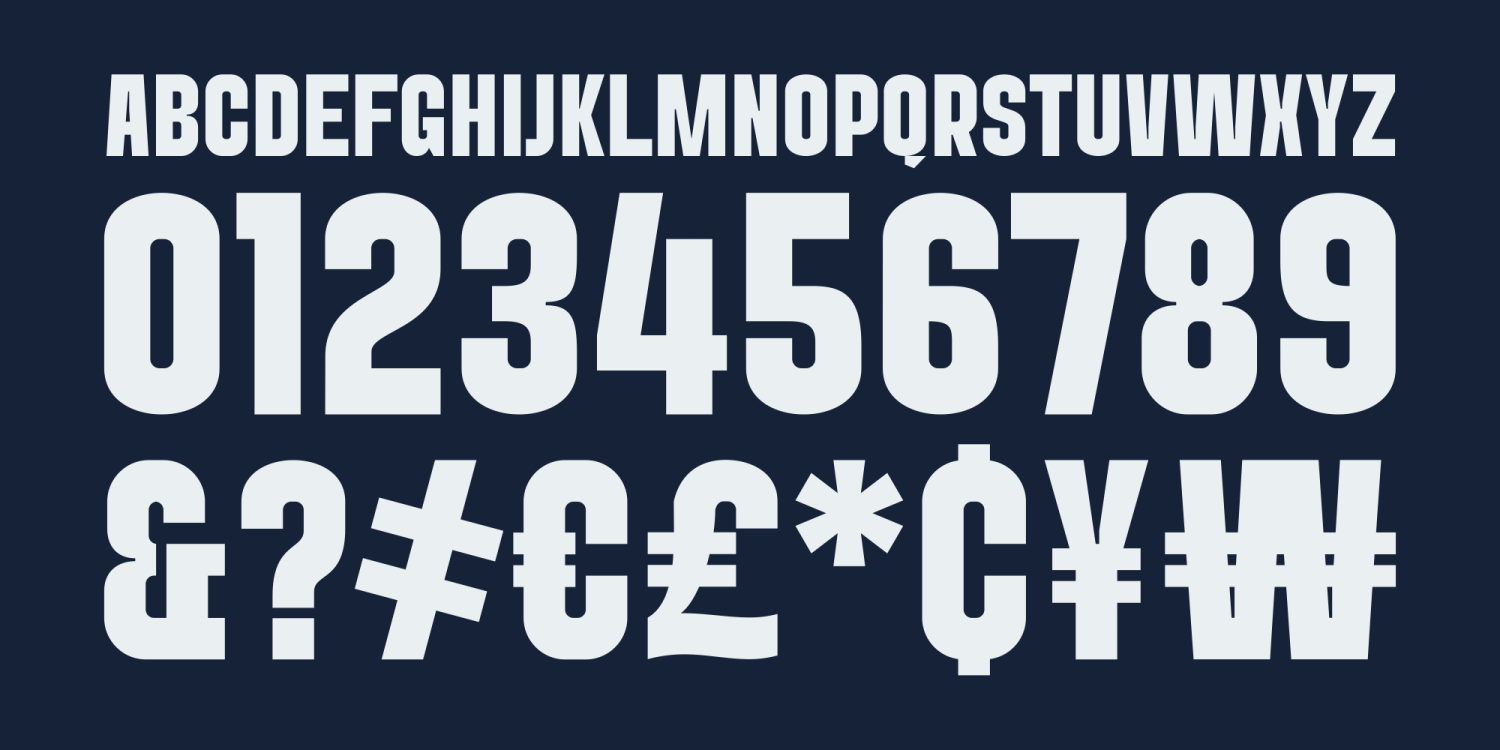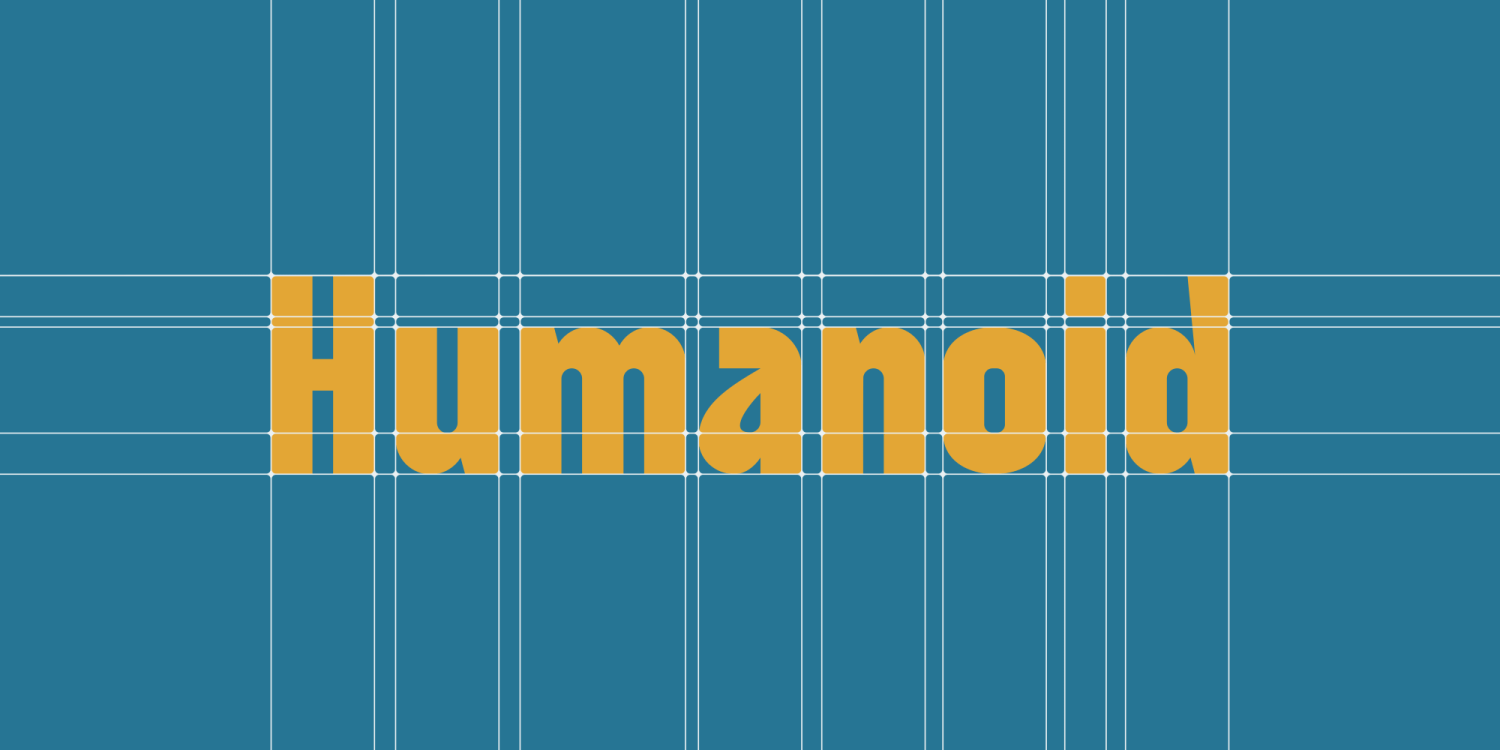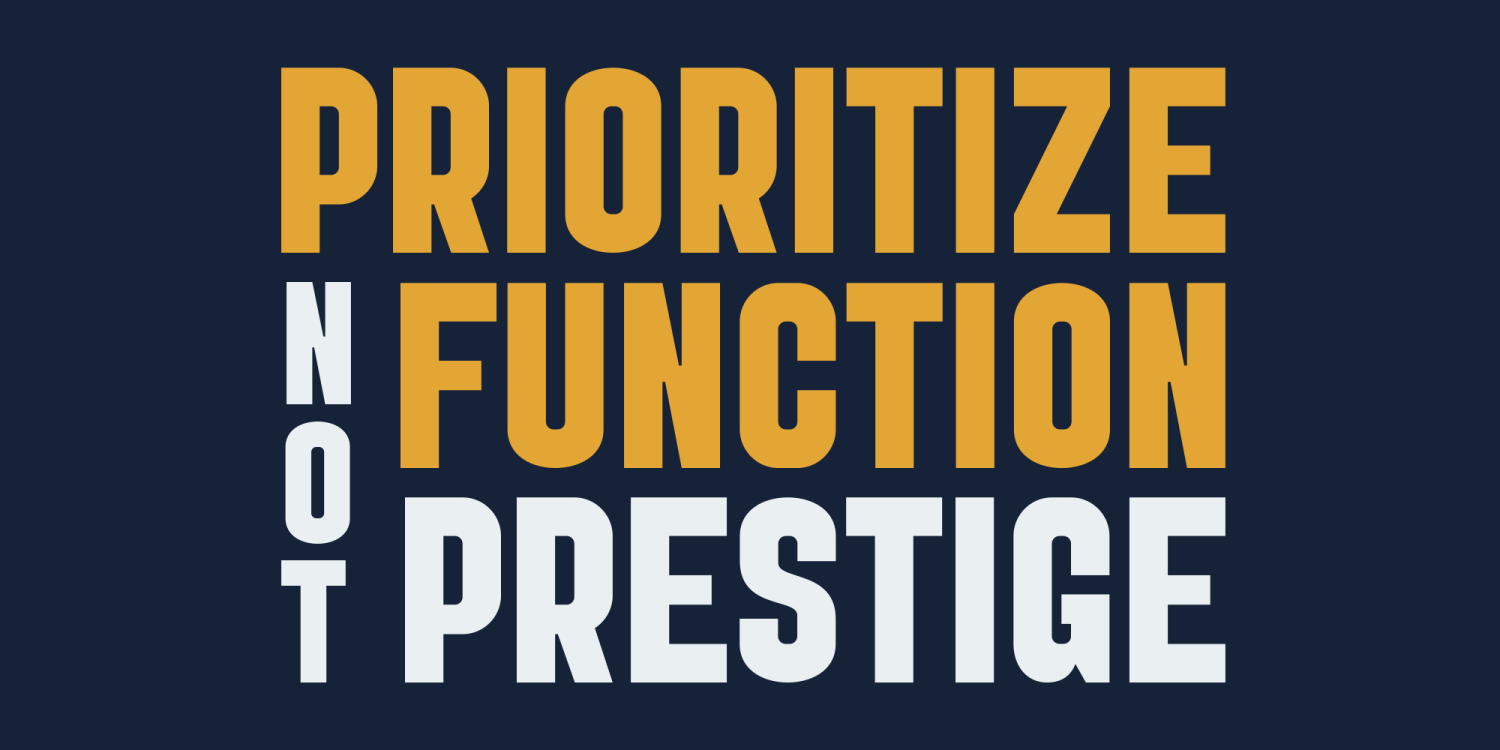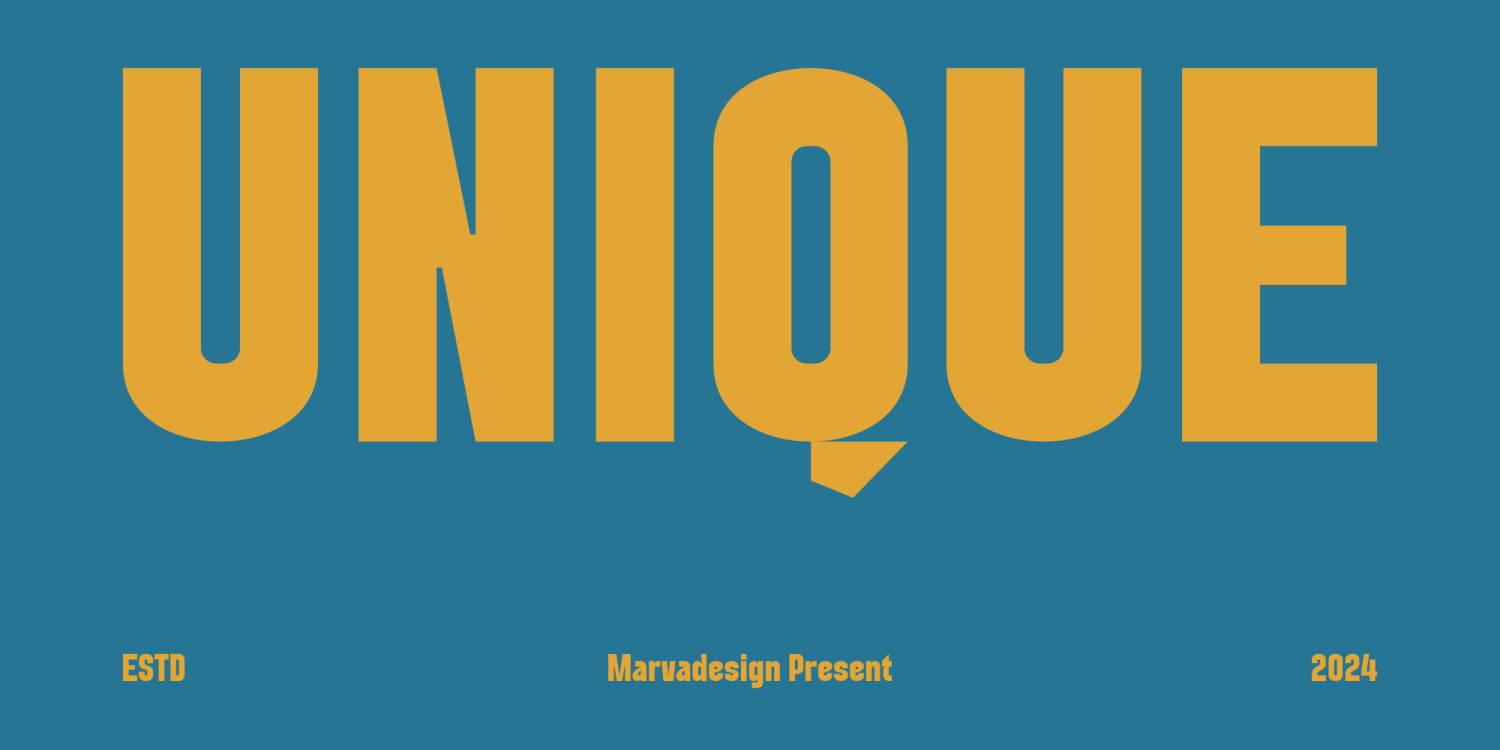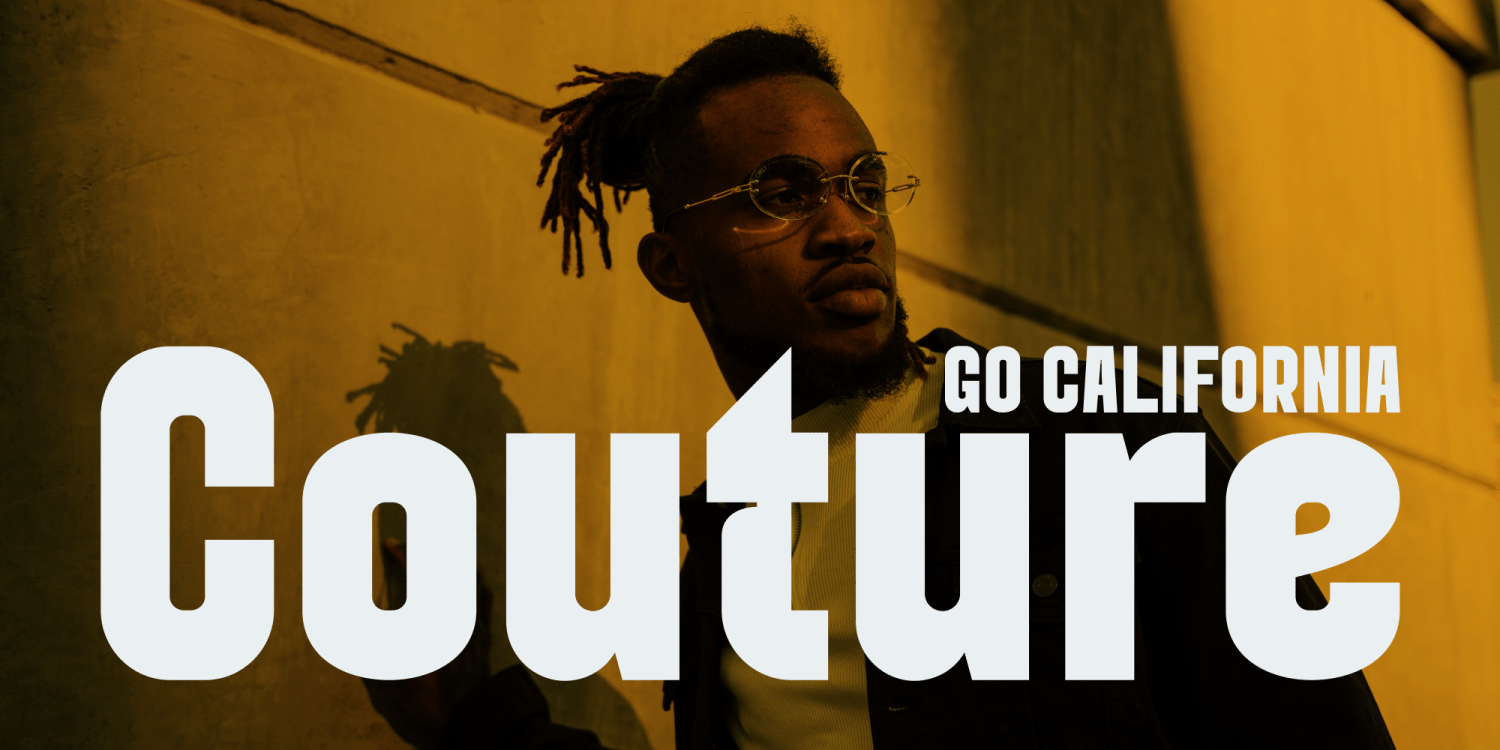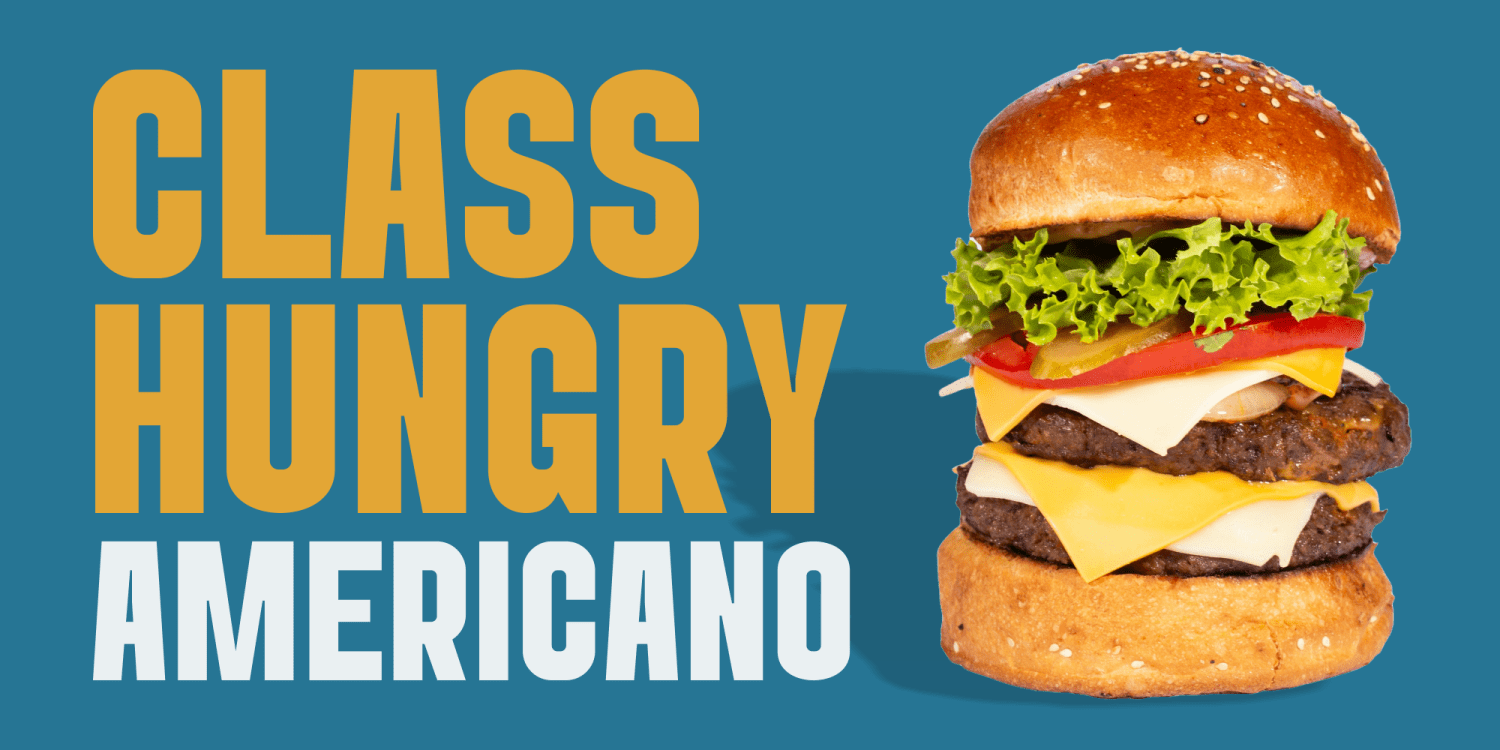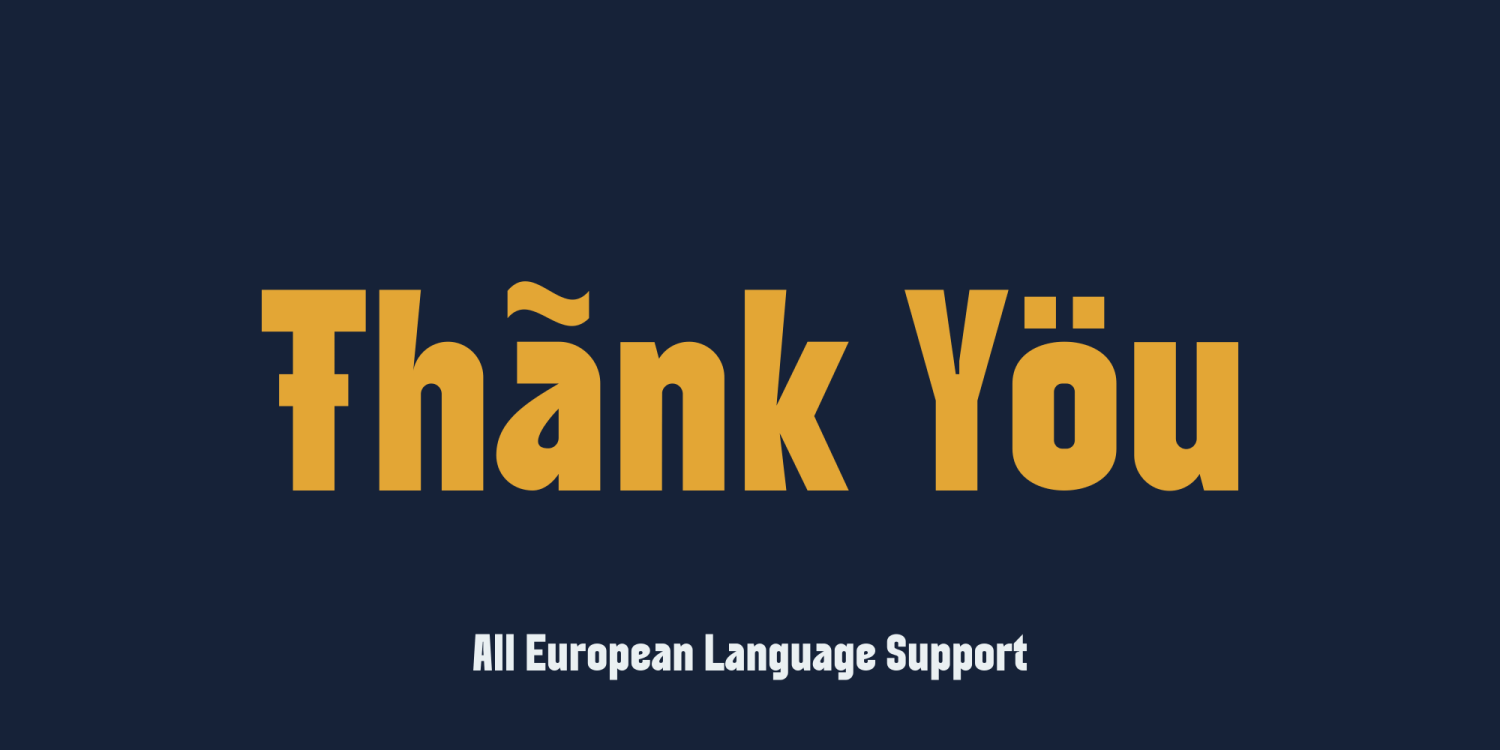
Ma Elbow
Font Family by Marvadesign
Introducing Ma Elbow an epitome of strength and clarity, stands as a testament to the boldness of modern typography. With each font variant boasting its unique character, this sans serif marvel embodies a resolute demeanor, delivering a message with unwavering confidence. From its assertive Regular weight to the commanding presence of its Bold iteration, Ma Elbow commands attention with its robust strokes and steadfast lines. Each character exudes a sense of determination, standing tall and proud on the digital canvas. What sets Ma Elbow apart is its meticulous attention to detail, ensuring that each font style retains its distinctive flair while maintaining coherence within the family. Whether it’s the angular edges of its letters or the sturdy construction of its typeface, Ma Elbow leaves an indelible mark, leaving no room for ambiguity.